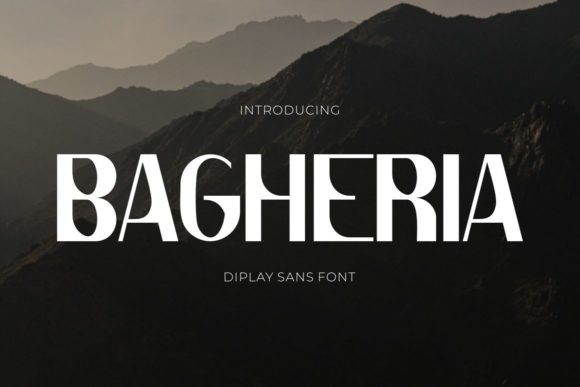
In the realm of digital aesthetics, Bagheria Font emerges as a captivating sans serif creation. Its strokes, meticulously crafted by the skilled hands of putracetol, exude a harmonious blend of boldness and fluidity. Bagheria Font is not merely a collection of characters; it's an artistic expression that breathes life into your designs.
Unleash your creativity with Bagheria Font, the ultimate choice for crafting modern websites that leave a lasting impression. Its contemporary style and vibrant curves bring a touch of sophistication to your digital creations. Dive into a world of boundless possibilities, where your imagination takes center stage.
Discover the hidden beauty of Bagheria Font's alternate characters, a treasure trove of glyphs and ligatures, waiting to be unearthed. With PUA encoding, accessing these embellishments is a breeze, allowing you to add an extra layer of elegance and uniqueness to your designs. Make your work stand out, captivate your audience, and leave them spellbound with Bagheria Font's captivating allure.
Bagheria Font stands as a testament to the power of fonts, elevating your designs to new heights of excellence. Its modern aesthetic, coupled with its rich character set, makes it the perfect choice for creating logos, branding, posters, and any other project that demands a touch of contemporary flair. Dare to be different, embrace the beauty of Bagheria Font, and let your creativity shine.